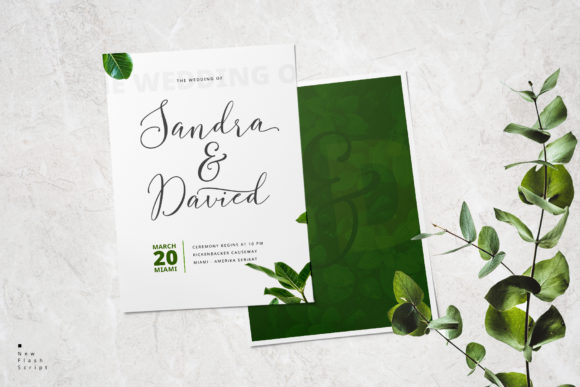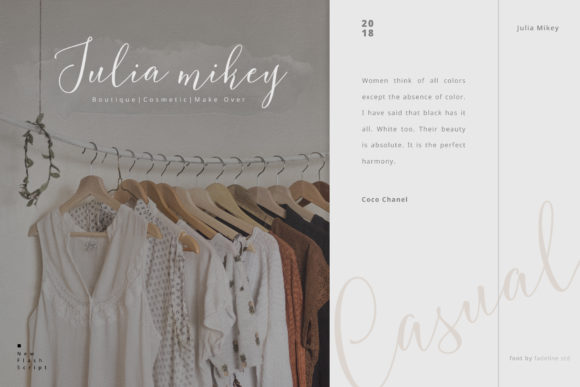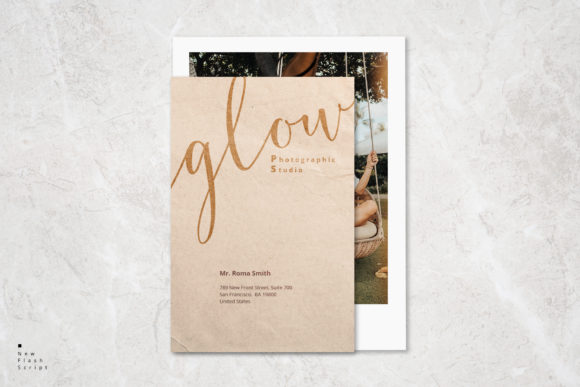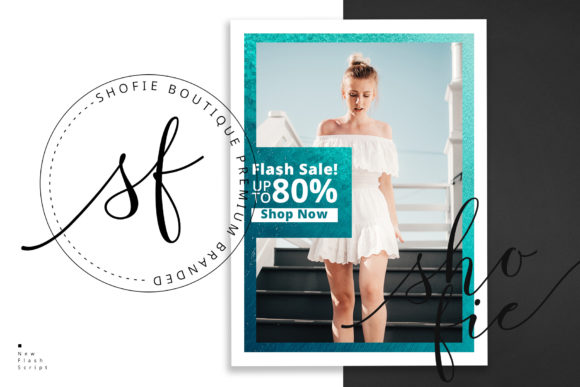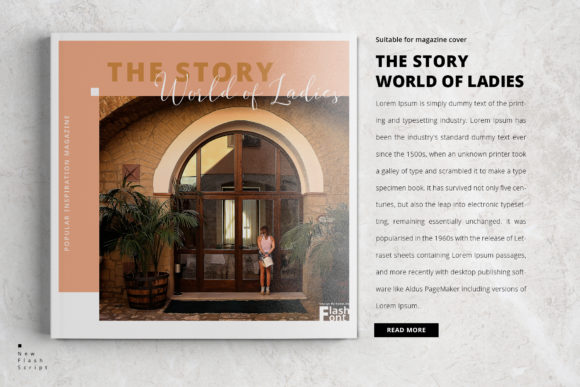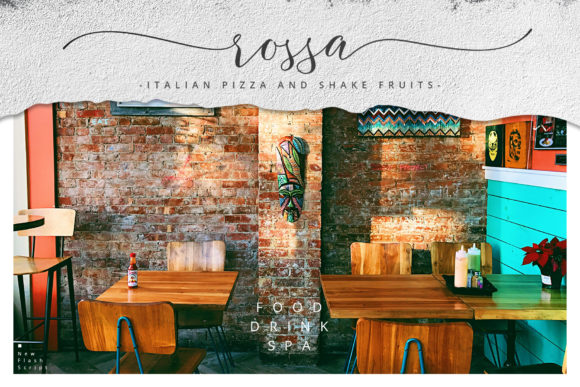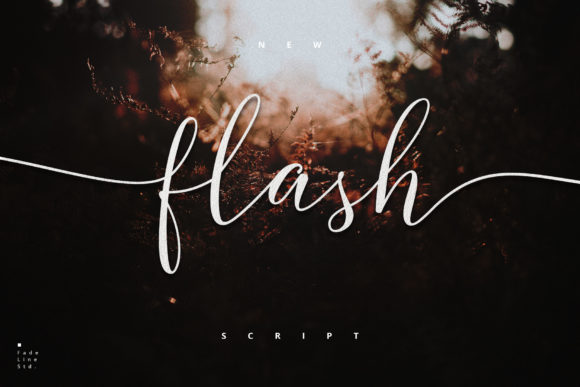
Introducing Flash Script Font: Elevate Your Designs with a Bold and Cool Handwritten Style
Are you tired of using the same old fonts in your design projects? Do you want to add a touch of personality and uniqueness to your creations? Look no further than Flash Script Font, a bold handwritten font with a cool feel that’s sure to make your designs stand out from the crowd.
What is Flash Script Font?
Flash Script Font is a carefully crafted handwritten font that’s designed to add a touch of elegance and sophistication to your designs. With its bold and fluid strokes, this font is perfect for creating eye-catching headings, titles, and quotes that will grab the attention of your audience.
Key Features of Flash Script Font
- Bold and Cool Design: Flash Script Font features a bold and cool design that’s perfect for creating modern and trendy designs.
- Handwritten Style: This font has a handwritten style that adds a touch of personality and uniqueness to your designs.
- High-Quality Letters: Each letter in Flash Script Font is carefully crafted to ensure high-quality and clear readability.
How to Use Flash Script Font in Your Designs
Using Flash Script Font in your designs is easy. Here are a few tips to get you started:
- Headings and Titles: Use Flash Script Font to create eye-catching headings and titles that will grab the attention of your audience.
- Quotes and Testimonials: This font is perfect for creating quotes and testimonials that will add a touch of elegance and sophistication to your designs.
- Logos and Branding: Use Flash Script Font to create unique and memorable logos and branding materials that will set your business apart from the competition.
Benefits of Using Flash Script Font
There are many benefits to using Flash Script Font in your designs. Here are a few:
- Unique and Memorable: This font is unique and memorable, making it perfect for creating designs that will stand out from the crowd.
- Elegant and Sophisticated: Flash Script Font adds a touch of elegance and sophistication to your designs, making it perfect for creating high-end designs.
- Easy to Read: This font is easy to read, making it perfect for creating designs that need to be clear and concise.
Who Can Use Flash Script Font?
Flash Script Font is perfect for designers, crafters, and businesses who want to add a touch of personality and uniqueness to their designs. Here are a few examples of who can use this font:
- Graphic Designers: Graphic designers can use Flash Script Font to create eye-catching designs that will grab the attention of their audience.
- Crafters: Crafters can use this font to create unique and personalized designs for their handmade products.
- Small Businesses: Small businesses can use Flash Script Font to create unique and memorable branding materials that will set them apart from the competition.
In conclusion, Flash Script Font is a bold handwritten font with a cool feel that’s perfect for designers, crafters, and businesses who want to add a touch of personality and uniqueness to their designs. With its bold and fluid strokes, high-quality letters, and easy-to-use design, this font is sure to make your designs stand out from the crowd.